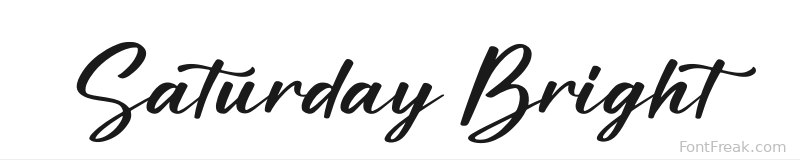
Saturday Bright
Saturday Bright is a captivating script font designed by Perspectype Studio, released in 2021 under a freeware license. This font embodies a playful yet elegant aesthetic, making it a versatile choice for a variety of design projects. Characterized by its fluid, cursive strokes, Saturday Bright features a medium stroke weight with a gentle contrast that enhances its legibility while retaining a charming handwritten appearance. The spacing between letters is well-balanced, allowing for seamless readability, which is crucial in any design context.
This font shines in specific use cases, making it particularly suitable for wedding invitations, where its romantic flair can elevate any announcement. Additionally, it works beautifully for branding materials such as logos and packaging designs, providing a personal touch that resonates with small business owners. Saturday Bright is also ideal for creating eye-catching restaurant menus, where its inviting style can draw attention to the offerings. Content creators will find it useful in social media graphics and blog headers, where a unique font can help convey personality and engage audiences.
Targeting graphic designers, small business owners, and content creators, Saturday Bright font free download offers an accessible option for those looking to infuse their work with a sense of warmth and creativity. This font stands out not just for its aesthetic qualities but also for its ability to convey emotion and personality, making it a delightful addition to any designer's toolkit. Its unique blend of playfulness and elegance fosters a connection with viewers, ensuring that messages are not only delivered but also felt. Whether used in formal invitations or casual branding, Saturday Bright is sure to leave a lasting impression.